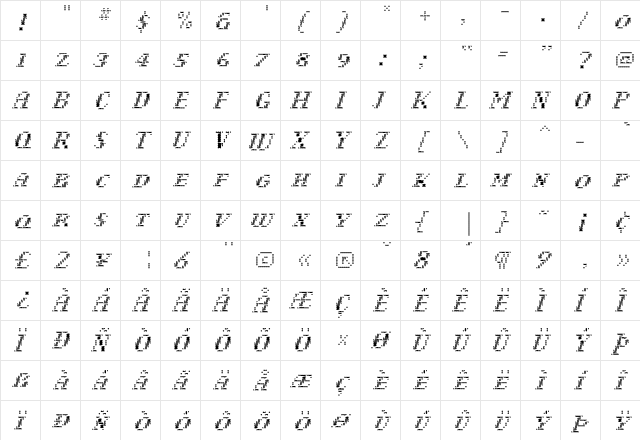
Narly Light Font Preview
Narly Light
Design Context for Narly Typeface
Narly takes a measured approach to typography — its balanced proportions and neutral character make it a reliable workhorse for both digital and print work. The delicate stroke weight brings airiness and refinement to layouts.